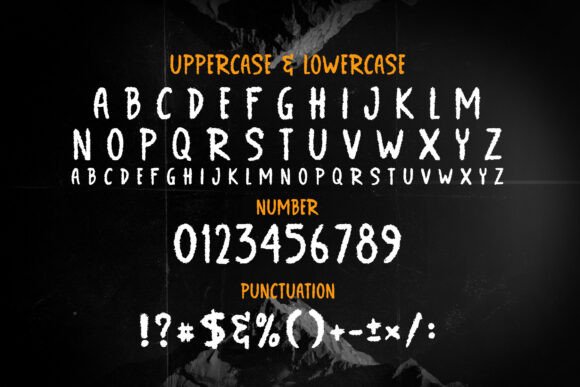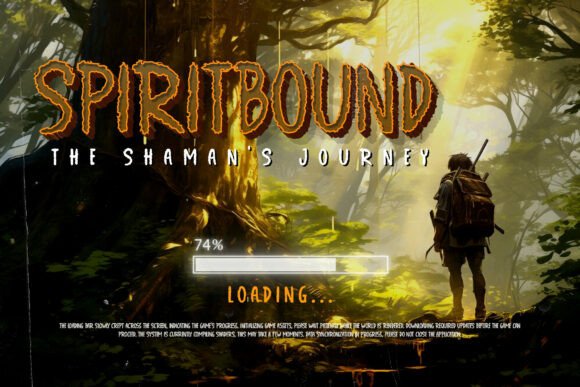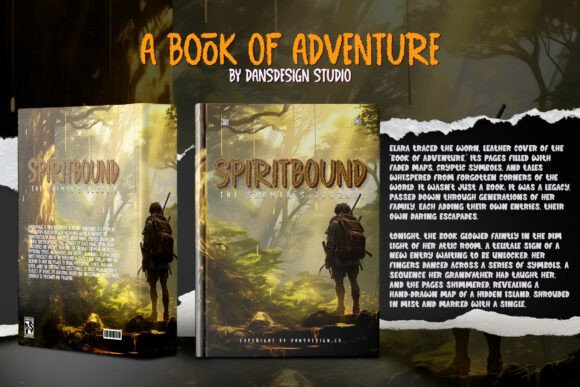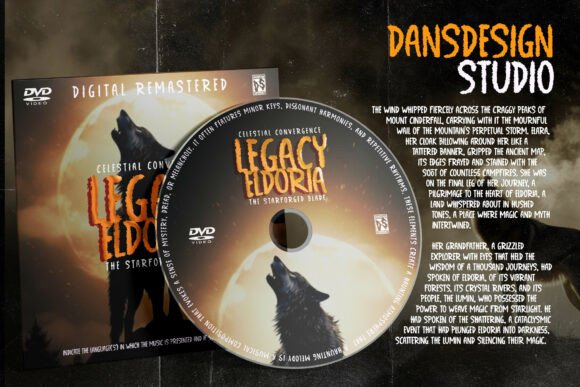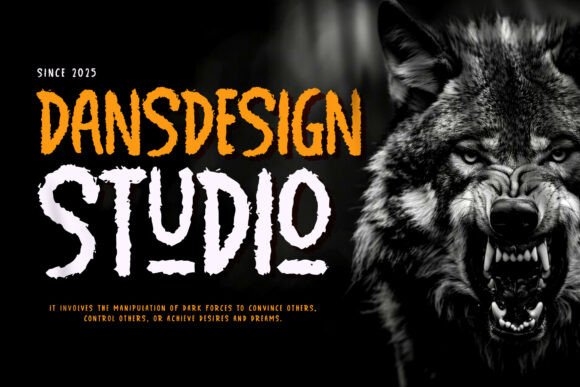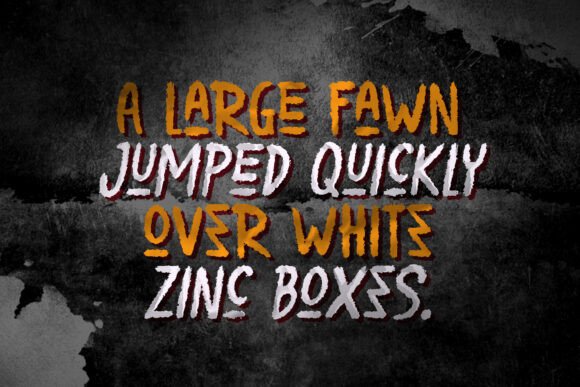
Unleash Your Creativity with Factory Adventures Font
Are you tired of using the same old fonts for your creative projects? Look no further than Factory Adventures, a bold and untamed display font that’s perfect for adding a touch of wildness to your designs. With its hand-drawn, jagged strokes and expressive brush style, this font captures the spirit of adventure, mystery, and rebellion that’s sure to grab attention and leave a lasting impression.
What is Factory Adventures Font?
Factory Adventures is a grunge brush typeface that’s designed to bring raw energy to your creative projects. Its uneven edges, rough textures, and fierce attitude make it the perfect choice for visuals that demand impact, mood, and edge. Whether you’re working on a horror-themed title, a moody poster design, or a daring headline, this font is sure to add a gritty personality to your work.
Perfect for Creative Projects that Demand Impact
Factory Adventures is ideal for a wide range of creative projects, including:
- Horror-themed titles and moody poster designs
- Games, survival stories, and urban adventures
- Halloween invitations and dark party flyers
- YouTube thumbnails, intro screens, and cinematic visuals
- Escape room branding, thrillers, and mystery content
- High-impact editorial graphics and bold digital displays
Key Features of Factory Adventures Font
Factory Adventures comes with a range of key features that make it the perfect choice for designers and crafters, including:
- Built-in ligatures for a more natural and dynamic letter flow
- Full set of uppercase, lowercase, and punctuation marks
- Hand-drawn, jagged strokes and expressive brush style
- Uneven edges and rough textures for a gritty, raw look
- Fierce attitude and bold personality
Why Choose Factory Adventures Font?
So why choose Factory Adventures font for your creative projects? Here are just a few reasons:
- Adds a touch of wildness to your designs: With its bold and untamed personality, Factory Adventures is the perfect choice for adding a touch of wildness to your designs.
- Grabs attention and doesn’t let go: This font is designed to grab attention and leave a lasting impression, making it perfect for titles, headlines, and other high-impact graphics.
- Ideal for a wide range of creative projects: From horror-themed titles to YouTube thumbnails, Factory Adventures is the perfect choice for a wide range of creative projects.
- Easy to use and customize: With its built-in ligatures and full set of uppercase and lowercase letters, Factory Adventures is easy to use and customize for your creative projects.
| Font Name | Factory Adventures Font |
| Author | Dansdesign |
In conclusion, Factory Adventures font is a bold and untamed display font that’s perfect for adding a touch of wildness to your creative projects. With its hand-drawn, jagged strokes and expressive brush style, this font captures the spirit of adventure, mystery, and rebellion that’s sure to grab attention and leave a lasting impression. Whether you’re working on a horror-themed title, a moody poster design, or a daring headline, Factory Adventures is the perfect choice for designers and crafters who want to add a gritty personality to their work.